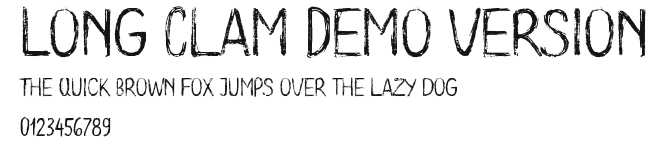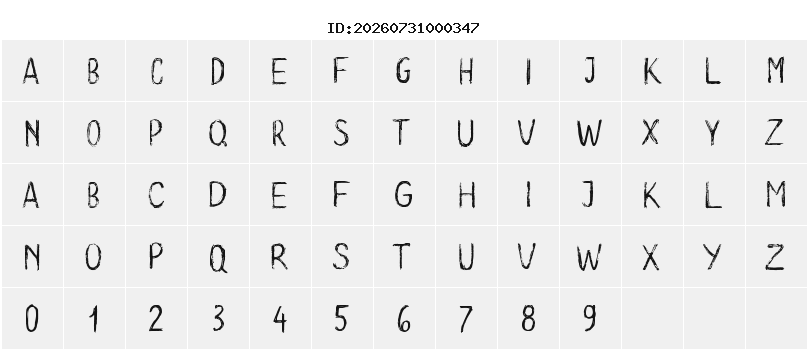
Long Clam Demo Version Preview
• Font Name: Long Clam Demo Version
• Designer: Le Thi Thu Huong
• Manufacturer: Le Thi Thu Huong
About Long Clam Demo Version.ttf
Long Clam Demo Version.ttf is a modern, elegant sans-serif font designed for ultimate readability and visual harmony. Perfect for branding, headlines, web design, and print materials.